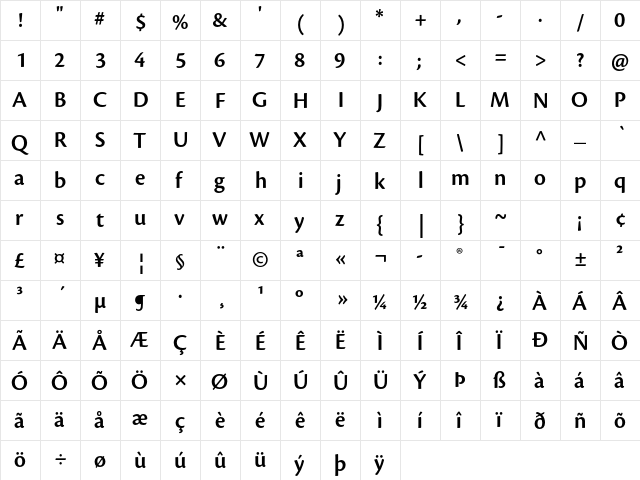
Cronos Pro Semibold Display
| Designer | Robert Slimbach |
Design Context for Cronos Pro Typeface
Cronos Pro is built around its visual character rather than neutral utility — its distinctive forms are designed to make an impression at display sizes. Its bold stroke weight gives it real presence on the page.
Font Pairing: Pair with a clean neutral sans-serif for body copy to let Cronos Pro's character lead without overwhelming the composition.
Pro Tip: Treat Cronos Pro as the centrepiece of your typographic hierarchy. One strong heading set in a decorative face can carry an entire layout.